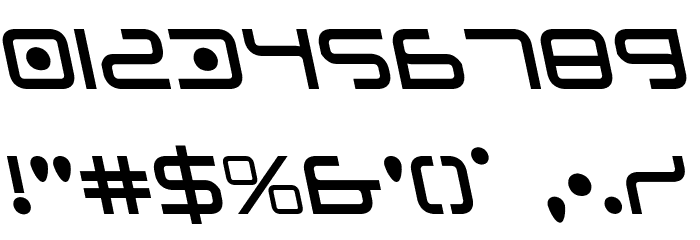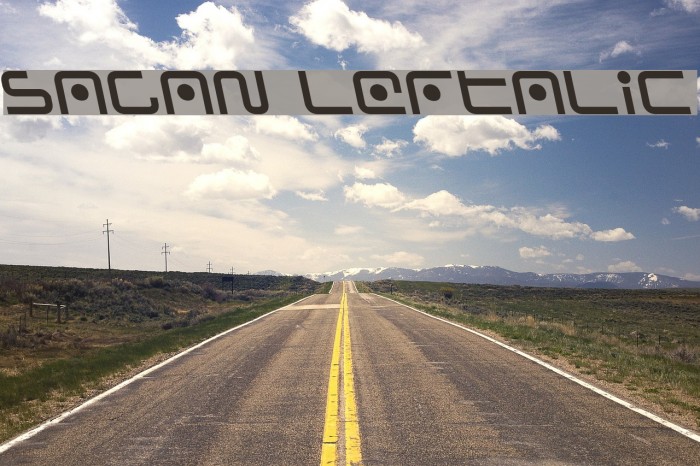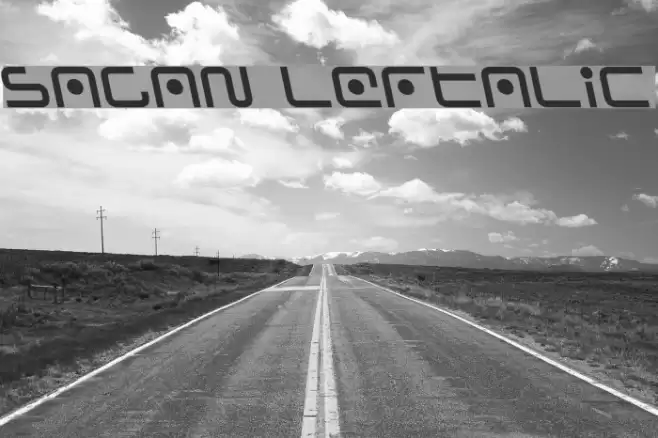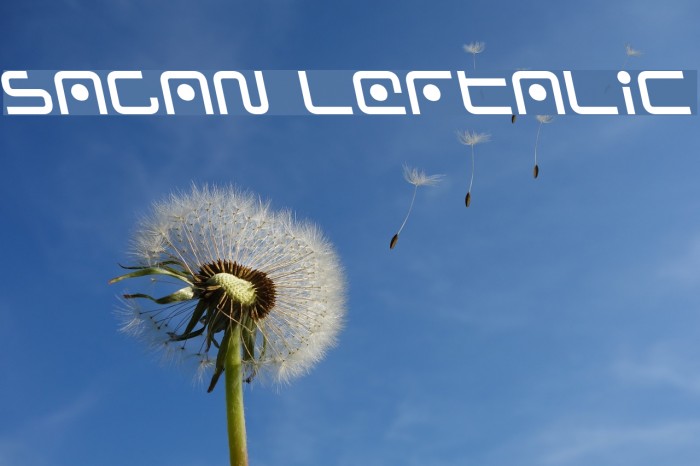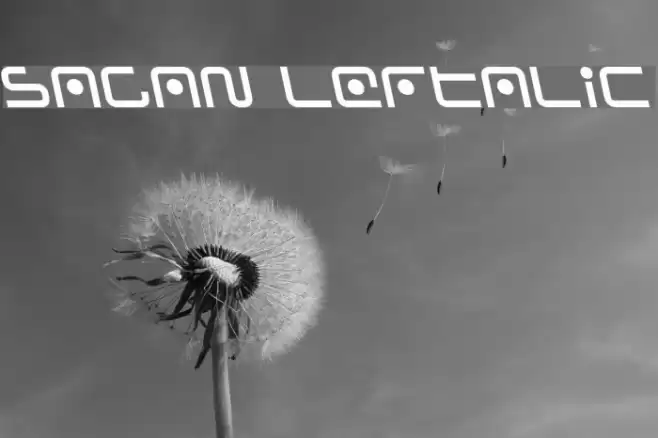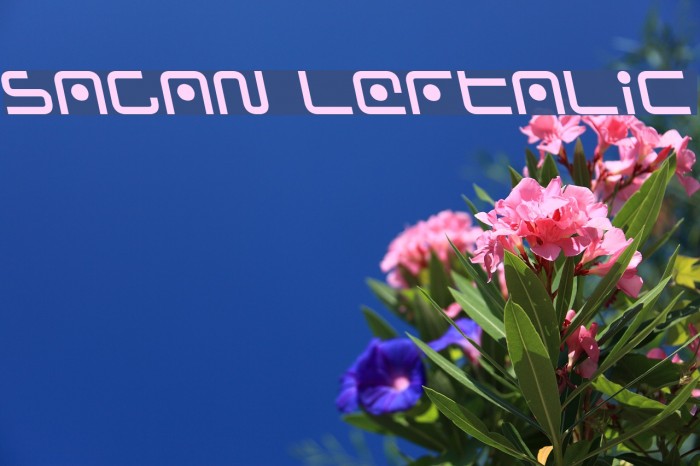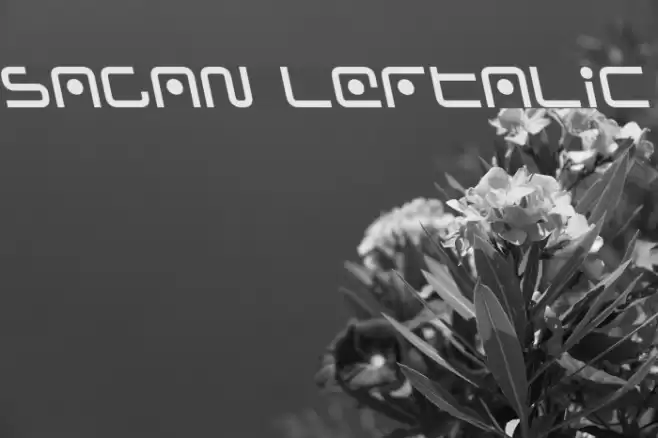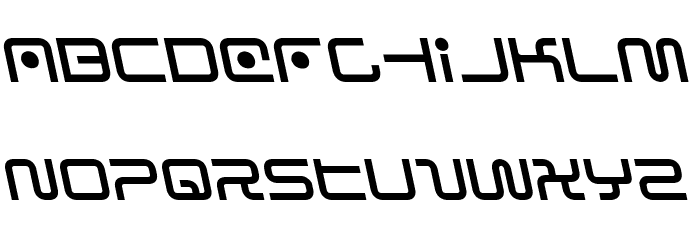
Sagan Leftalic Font
Sagan Leftalic Description
This font features a futuristic and geometric design with a unique blend of angular and rounded elements. Each character is crafted with precision, incorporating distinct cutouts and circular motifs that add a modern and technological feel. The uppercase and lowercase letters maintain a consistent style, with the uppercase being slightly more pronounced. The numerals and special characters follow the same design principles, ensuring a cohesive look across all glyphs. The font's structure is clean and minimalistic, making it suitable for digital and print media where a contemporary and innovative appearance is desired.
| Use Case | Logos, Headlines, Digital interfaces |
| Proposed Projects | Ideal for tech branding, sci-fi themed projects, digital interfaces, and modern advertising. |